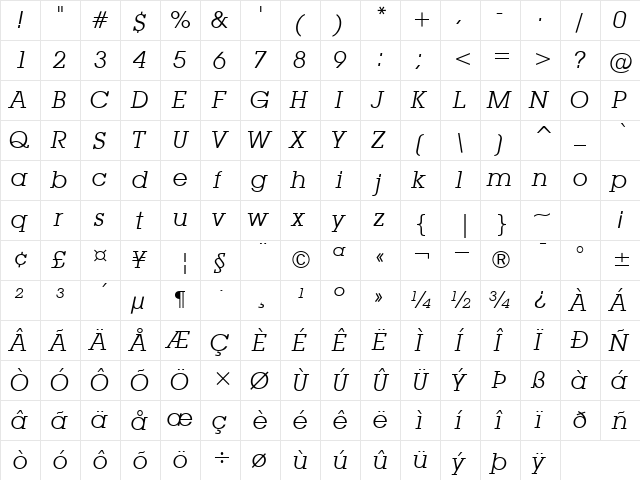
ITCLubalinGraph-Book BookItalic Font Preview
ITCLubalinGraph-Book BookItalic
Design Context for ITCLubalinGraph-Book Typeface
ITCLubalinGraph-Book takes a measured approach to typography — its balanced proportions and neutral character make it a reliable workhorse for both digital and print work. The slanted form adds forward momentum and visual energy.